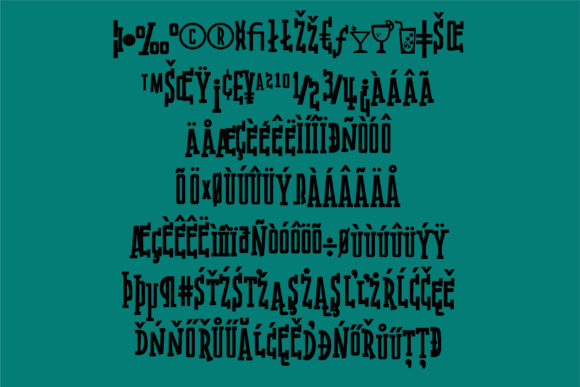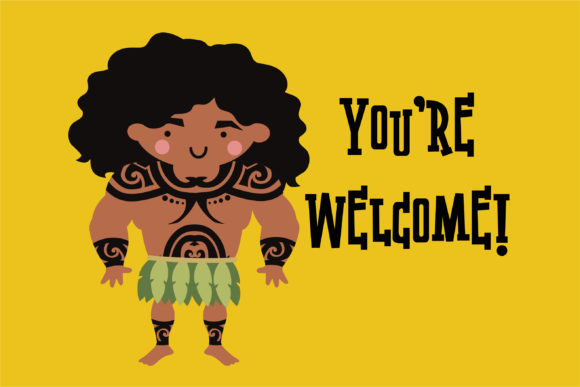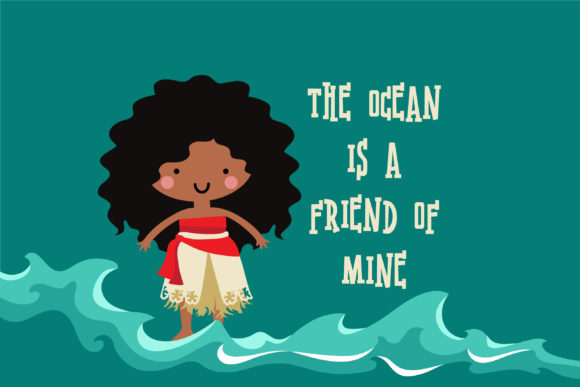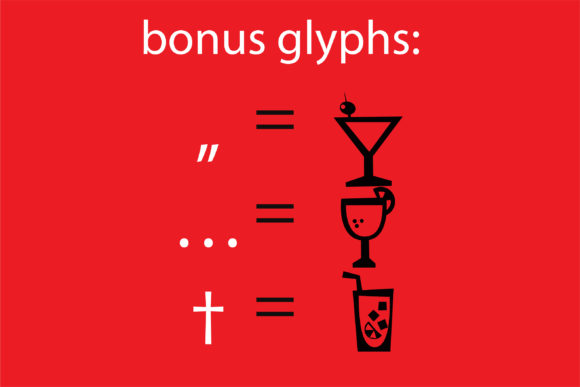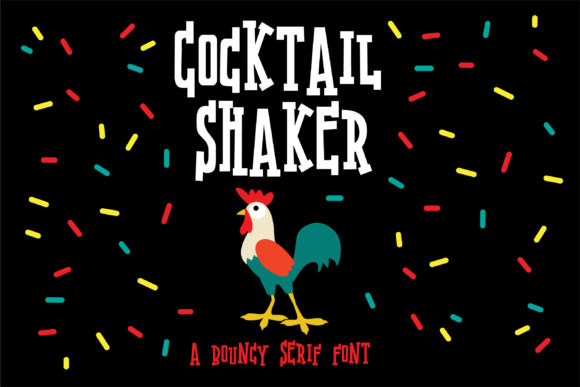
Cocktail Shaker Font: Add a Bouncy Twist to Your Designs
Are you looking for a font that can add a dash of whimsy and excitement to your designs? Look no further than the Cocktail Shaker font! This charming serif font features a bouncy baseline that is sure to capture the attention of your audience. In this article, we’ll dive into the world of Cocktail Shaker font and explore its unique characteristics, uses, and benefits.
The Story Behind Cocktail Shaker Font
Cocktail Shaker font is a carefully crafted typeface that is designed to evoke the feeling of a carefree summer evening. The font’s creator was inspired by the classic cocktail shaker, with its rounded curves and playful vibe. The result is a font that is both elegant and fun, making it perfect for a wide range of design projects.
Key Features of Cocktail Shaker Font
So, what makes Cocktail Shaker font so special? Here are a few of its key features:
- Whimsical Serif Font: Cocktail Shaker font is a serif font with a playful twist. Its serifs are rounded and smooth, giving the font a friendly and approachable feel.
- Bouncy Baseline: The font’s baseline is not straight, but rather has a gentle bounce to it. This unique feature gives the font its signature look and feel.
- Exciting Look & Feel: Cocktail Shaker font is designed to add a touch of excitement to your designs. Its playful vibe makes it perfect for projects that require a bit of personality.
Uses for Cocktail Shaker Font
Cocktail Shaker font is a versatile typeface that can be used in a variety of design projects. Here are a few ideas to get you started:
- Wedding Invitations: Add a touch of whimsy to your wedding invitations with Cocktail Shaker font. Its elegant and playful vibe makes it perfect for wedding designs.
- Branding and Packaging: Use Cocktail Shaker font to add a bit of personality to your brand’s packaging and marketing materials.
- Signs and Posters: The font’s bold and playful design makes it perfect for eye-catching signs and posters.
- Digital Media: Cocktail Shaker font can also be used in digital media, such as social media graphics, blog posts, and email newsletters.
Benefits of Using Cocktail Shaker Font
So, why should you choose Cocktail Shaker font for your next design project? Here are a few benefits:
- Unique and Eye-Catching: Cocktail Shaker font is a one-of-a-kind typeface that is sure to capture the attention of your audience.
- Easy to Read: Despite its playful design, Cocktail Shaker font is easy to read and understand, making it perfect for body text and headlines.
- Customizable: The font comes in a range of weights and styles, making it easy to customize to suit your design needs.
Tips for Using Cocktail Shaker Font
Here are a few tips for getting the most out of Cocktail Shaker font:
- Use it as a Headline Font: Cocktail Shaker font is perfect for headlines and titles. Use it to add a touch of personality to your design.
- Pair it with a Simple Font: For body text, pair Cocktail Shaker font with a simple and easy-to-read font to create a balanced design.
- Experiment with Colors: The font’s playful design makes it perfect for experimenting with bold and bright colors.
Cocktail Shaker font is a unique and exciting typeface that is sure to add a touch of whimsy to your designs. With its bouncy baseline and playful vibe, it’s perfect for a wide range of design projects, from wedding invitations to branding and packaging. Whether you’re a designer, crafter, or DIY enthusiast, Cocktail Shaker font is a great choice for anyone looking to add a bit of personality to their designs.